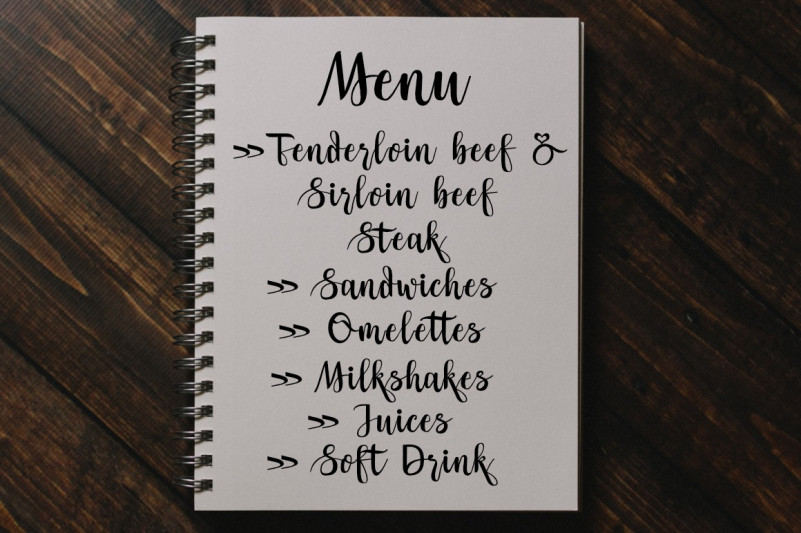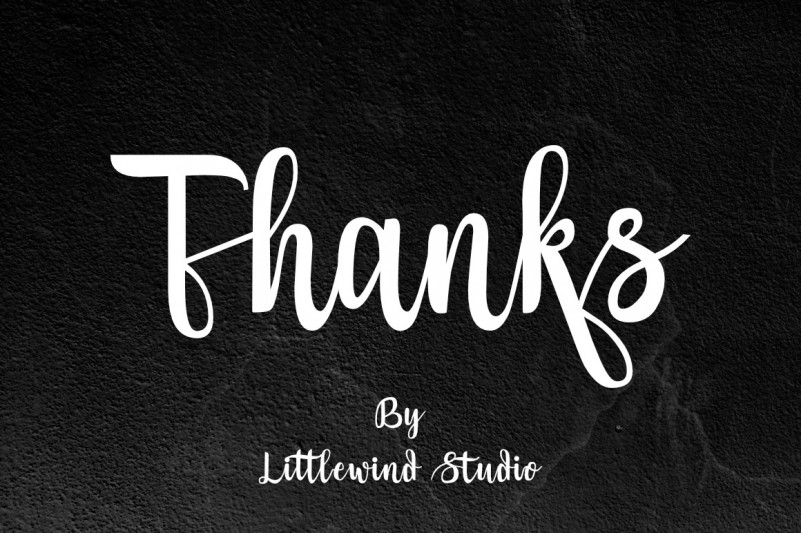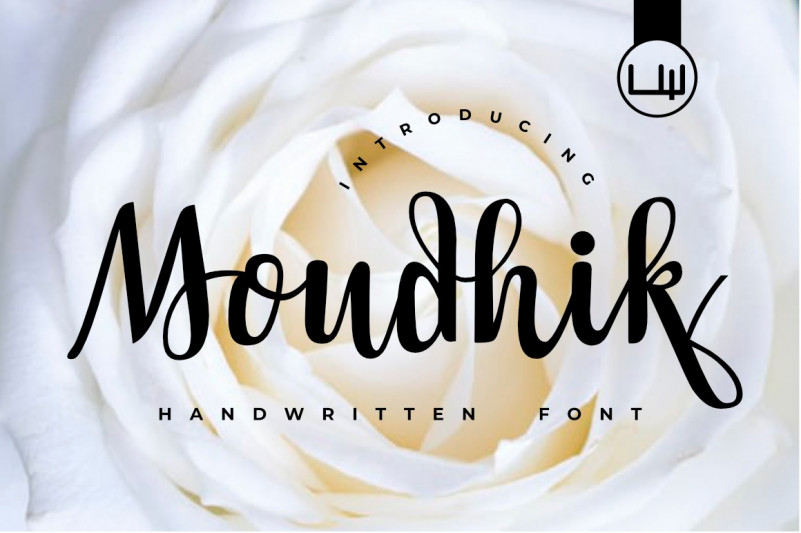
Moudhik Script Font
Moudhik font is our first handwritten font whose name was inspired by the lockdown due to the covid 19 pandemic thus limiting the mobility of the people.
This font is suitable for use in your best designs. such as invitations, posters, advertising, movie, covers etc.